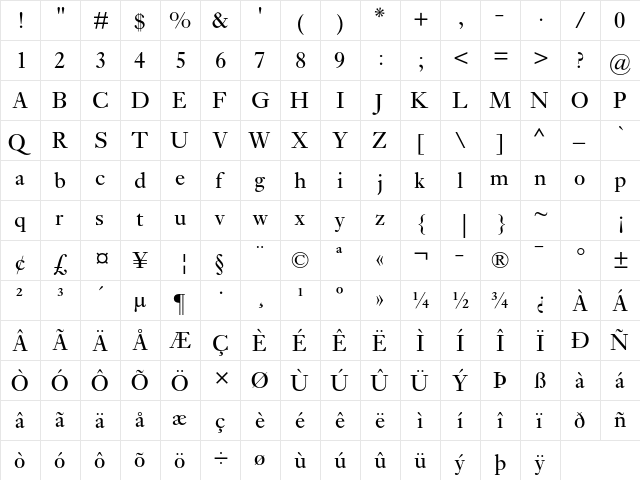
Ehrhardt MT Std Regular
Design Context for Ehrhardt MT Std Typeface
Ehrhardt MT Std takes a measured approach to typography — its balanced proportions and neutral character make it a reliable workhorse for both digital and print work.